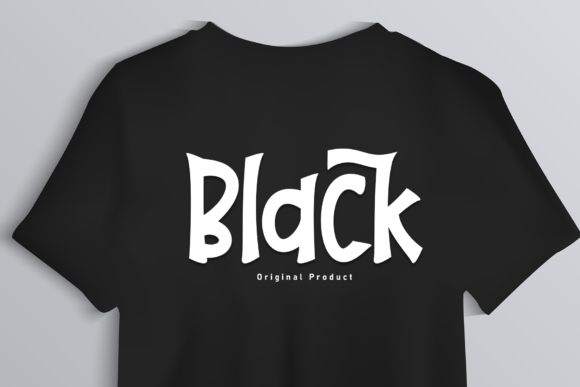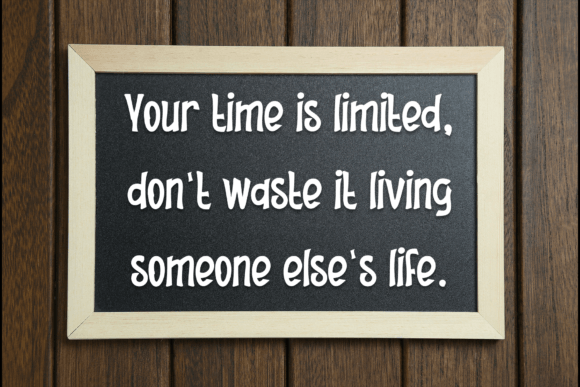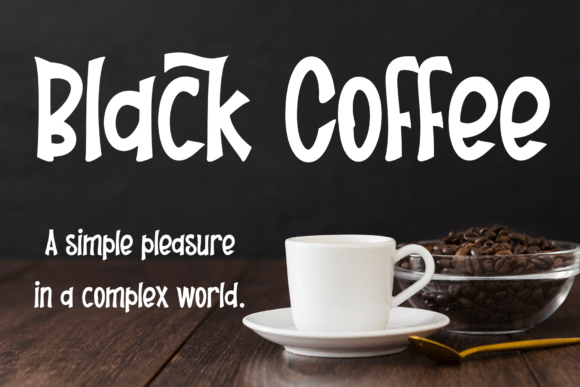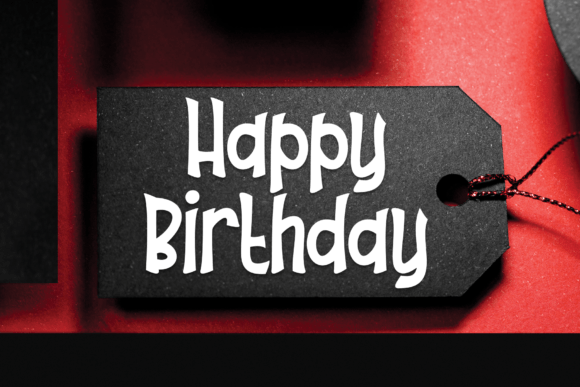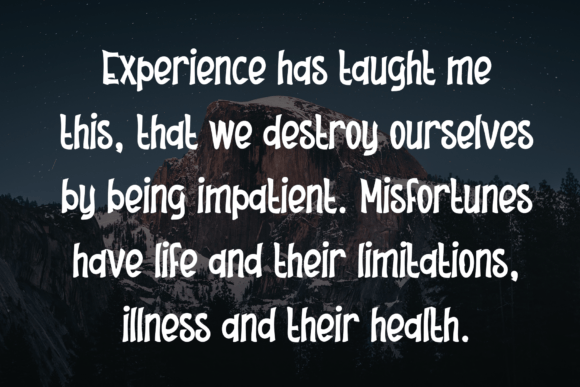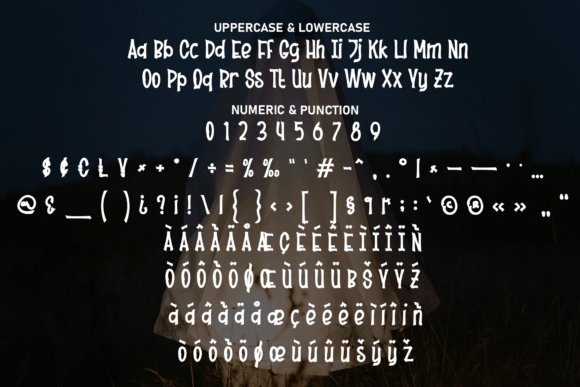
Introduction to Night Ghost Font
Night Ghost is a handwritten font that looks like it’s been scrawled with a spooky, playful touch.
Its uneven lines and whimsical curves give it a unique, eerie charm, perfect for adding a touch of mystery to your designs .